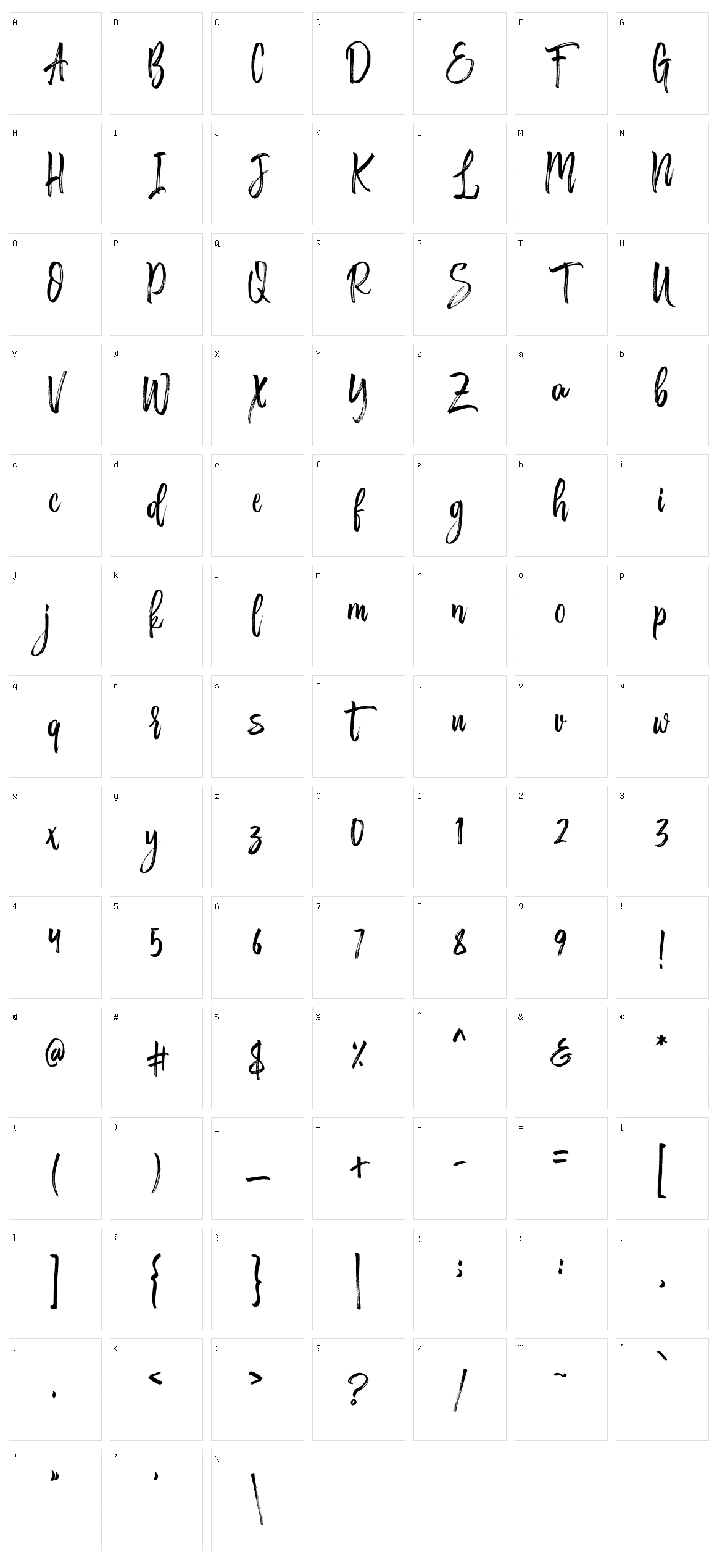
The free font Billy Whites is carefully designed by Debut Studio, showcasing a thoughtful balance of creativity and usability and falls under the Script font style. When you download the ZIP file, it contains only 440.16 KB of font files, making it lightweight and quick to download. Please review the license details below to understand permitted usage and distribution rights. If license information is not available, we recommend using this font for personal projects only or contacting the author directly for commercial usage permissions.